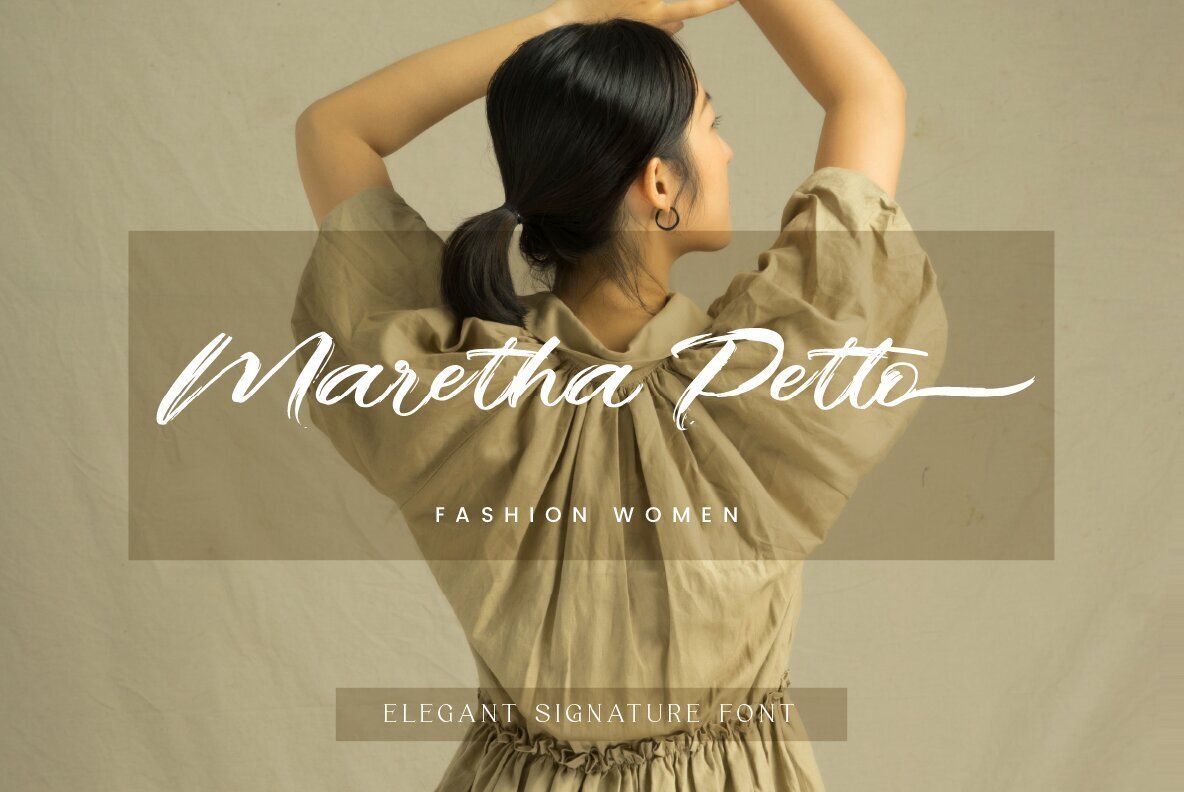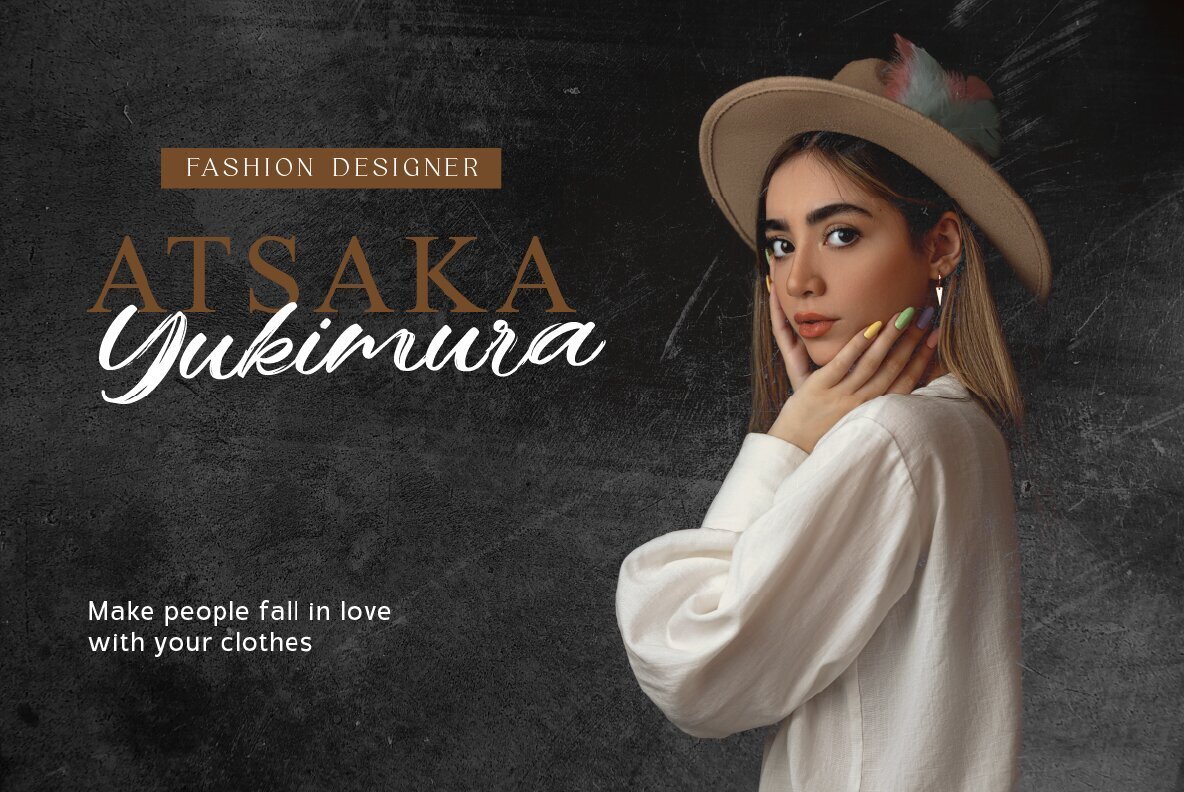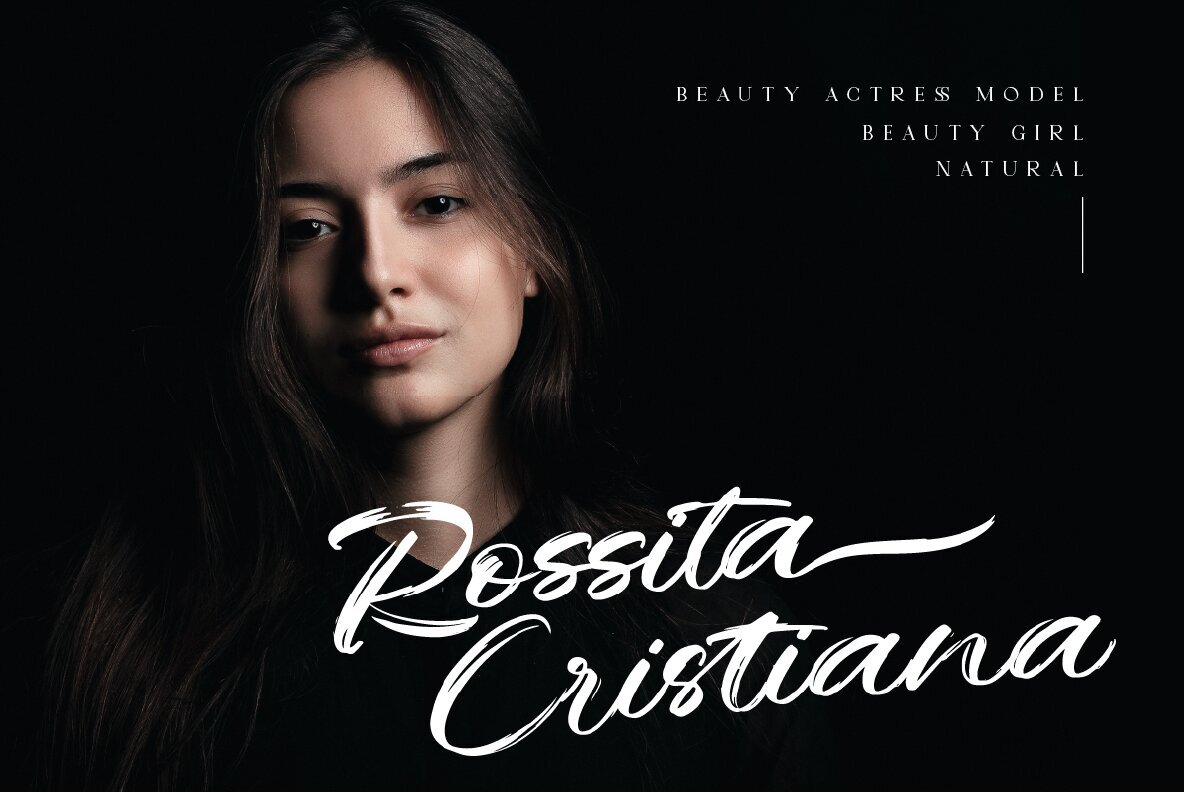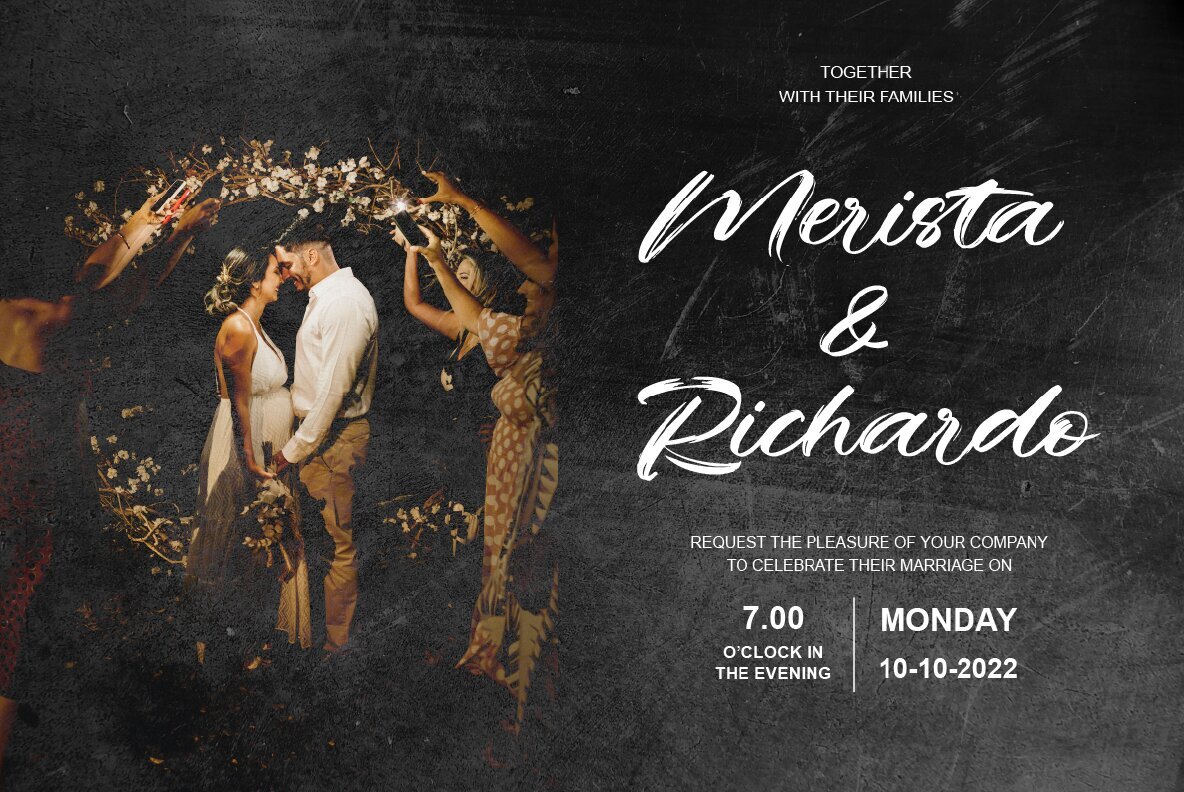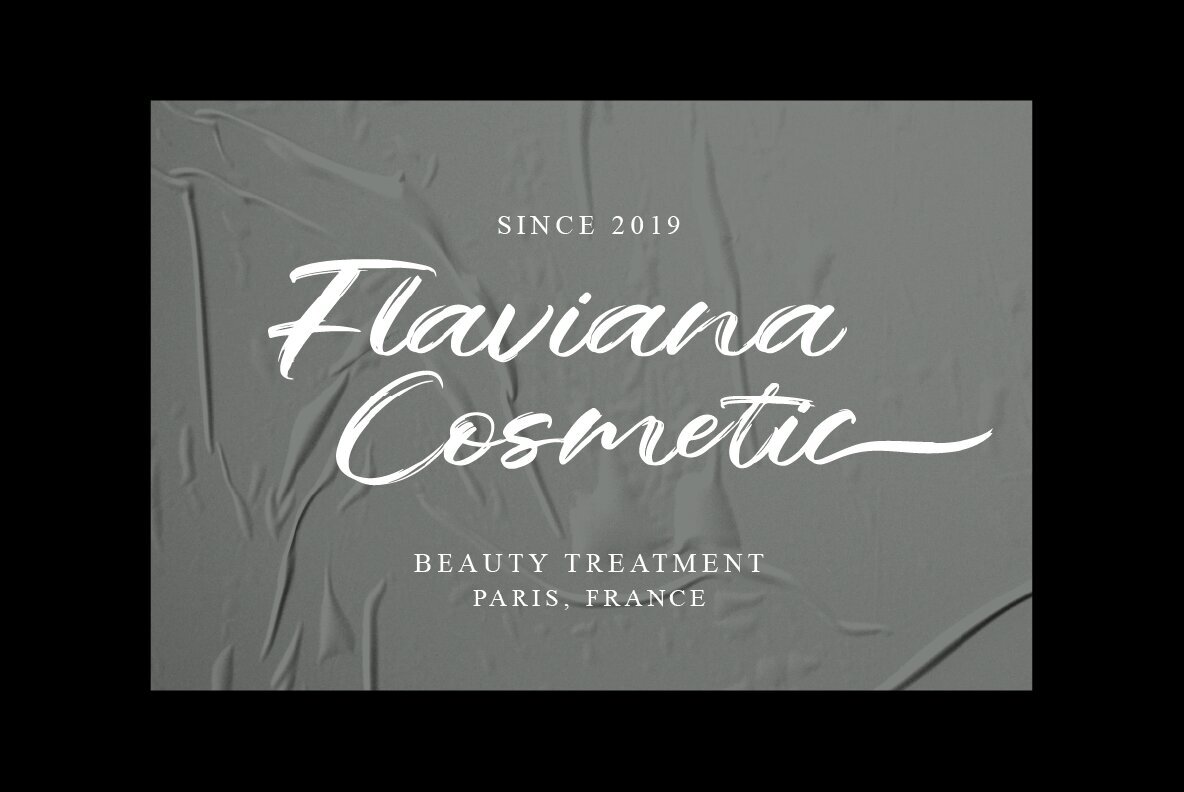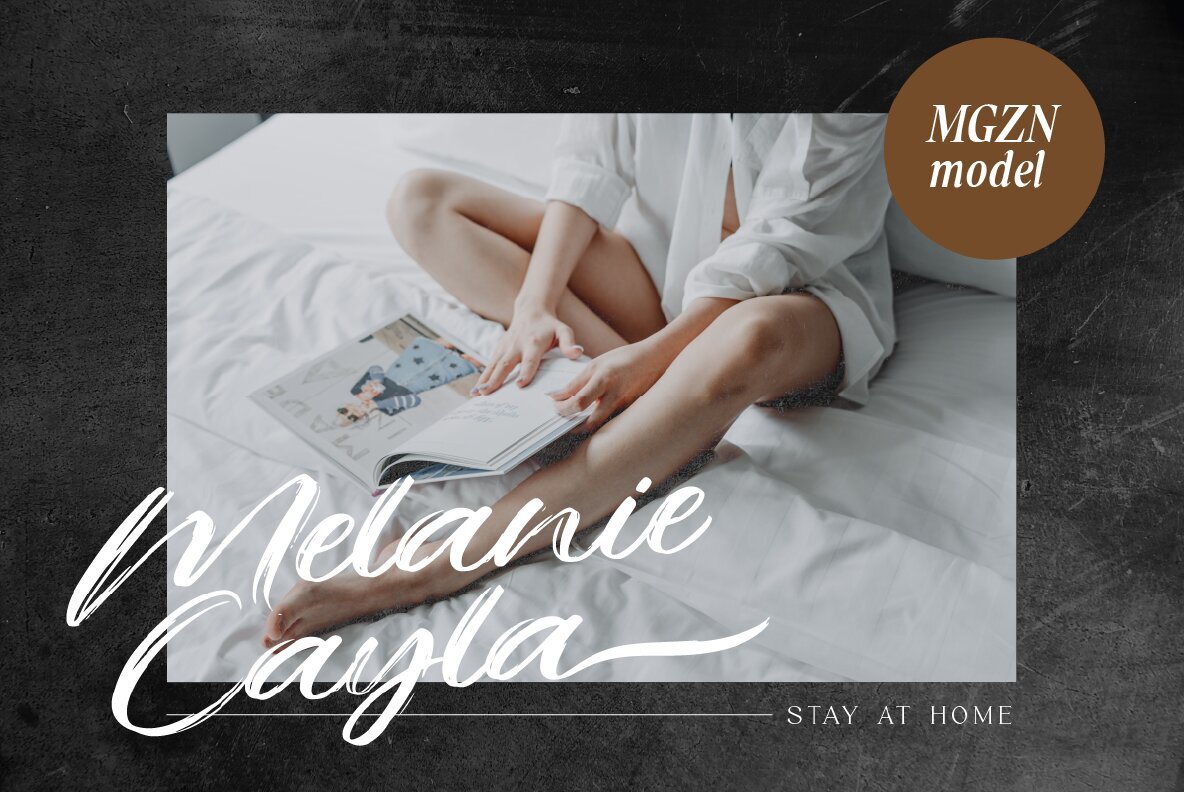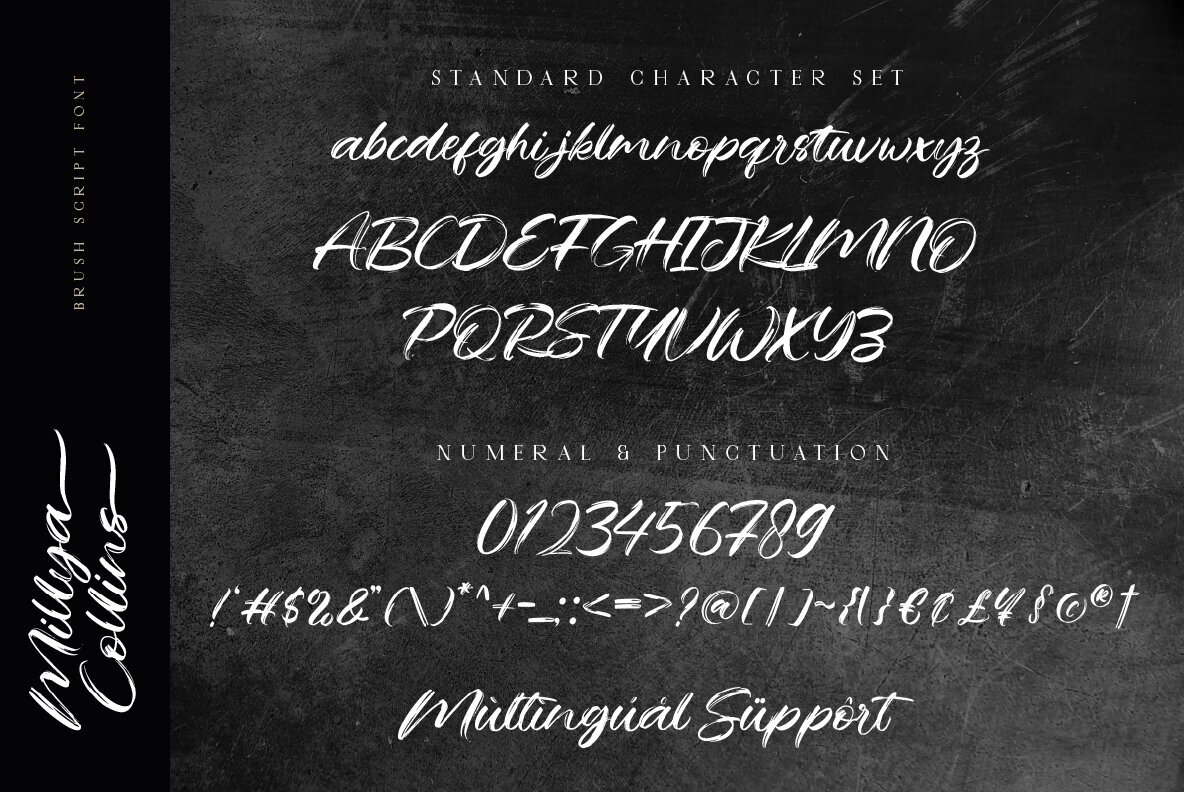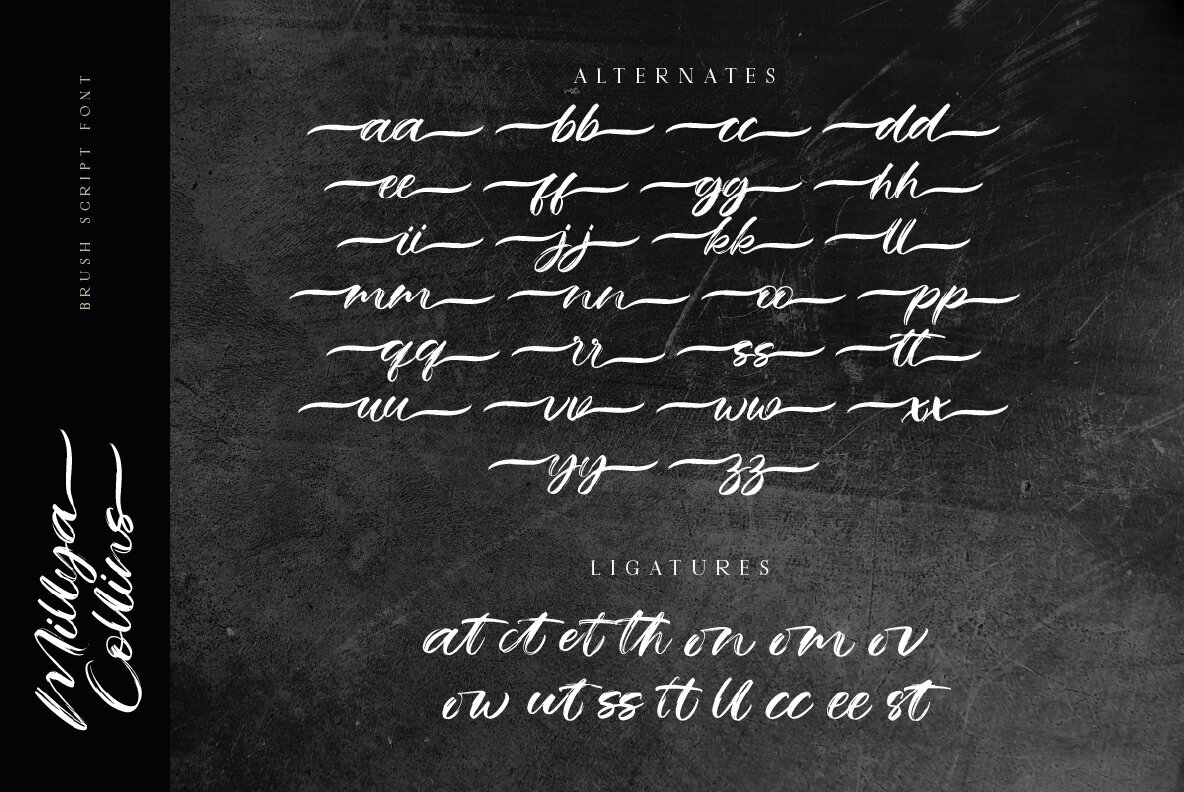
Millya Collins Font
Millya Collins
Millya Collins is a natural brush script font designed to bring a fresh, modern style to your projects. This stylish script adds an eye-catching appeal to logos, brand imagery, quotes, product packaging, merchandise, and social media posts. If you have any questions, please feel free to contact us. Enjoy crafting with Millya Collins, and thank you for your support!Millya Collins: A Modern Brush Script Font